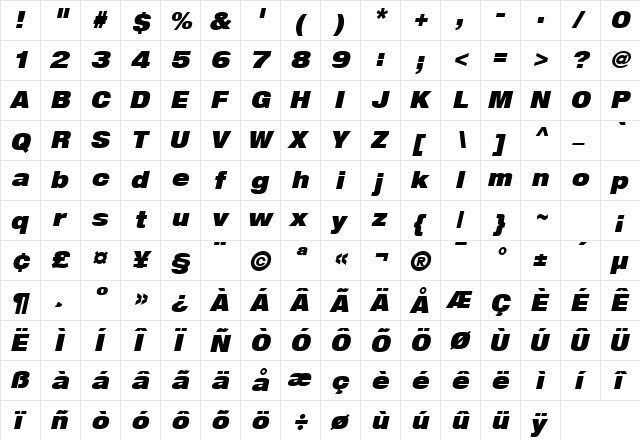
Heavenetica9P UBlkOblSH Font Preview
Heavenetica9P UBlkOblSH
Design Context for Heavenetica9P Typeface
Heavenetica9P takes a measured approach to typography — its balanced proportions and neutral character make it a reliable workhorse for both digital and print work.